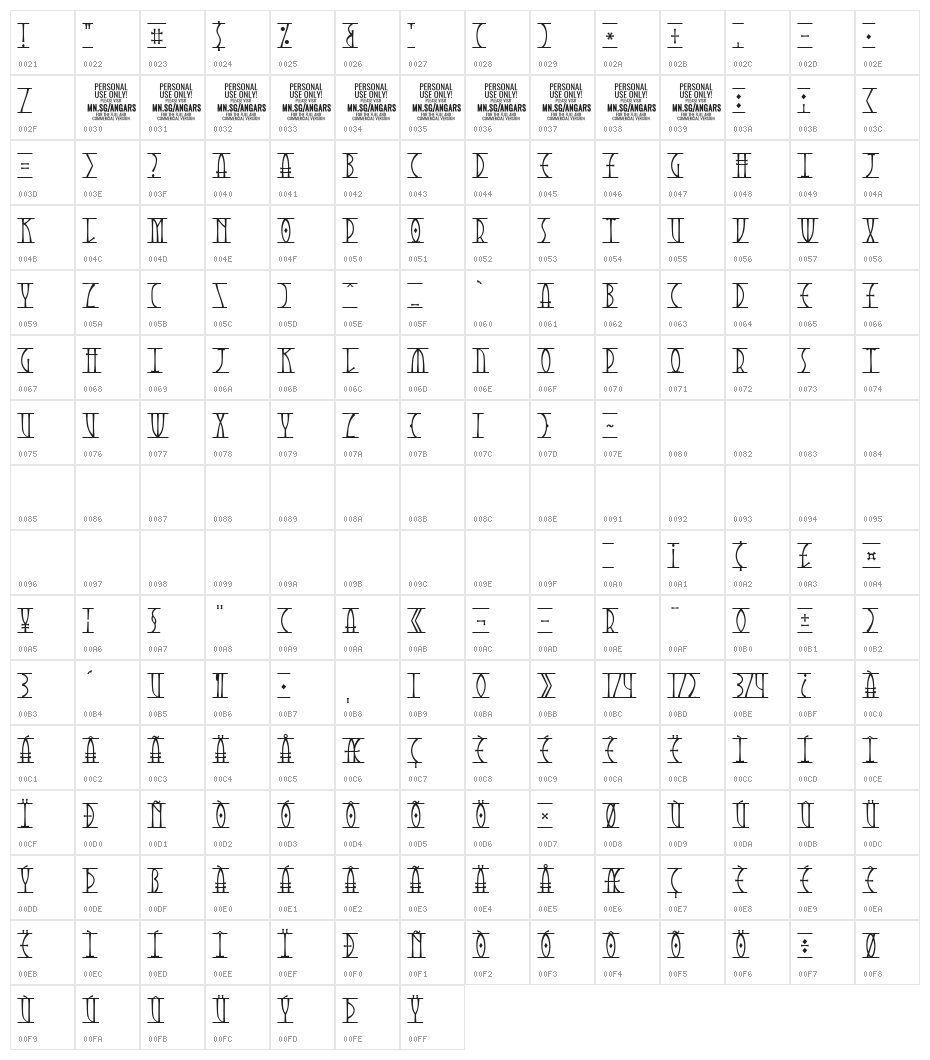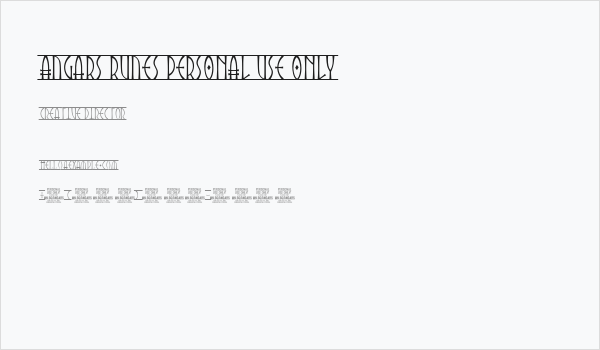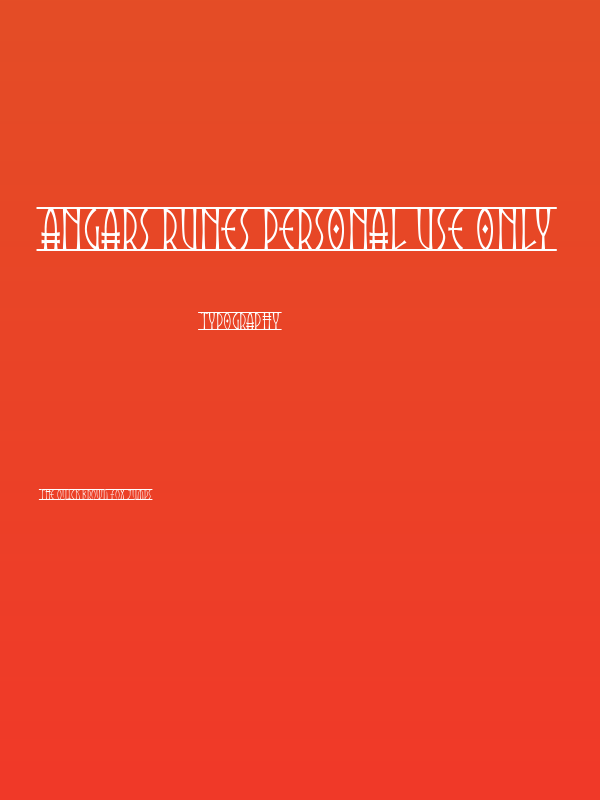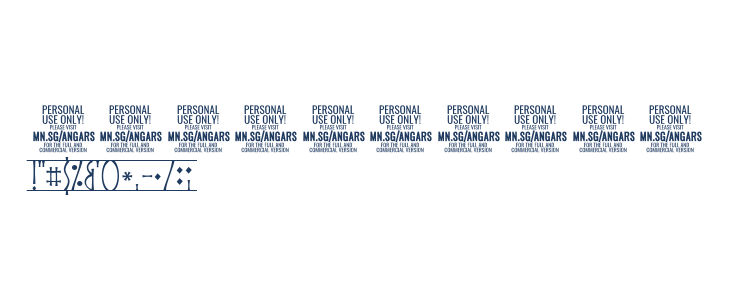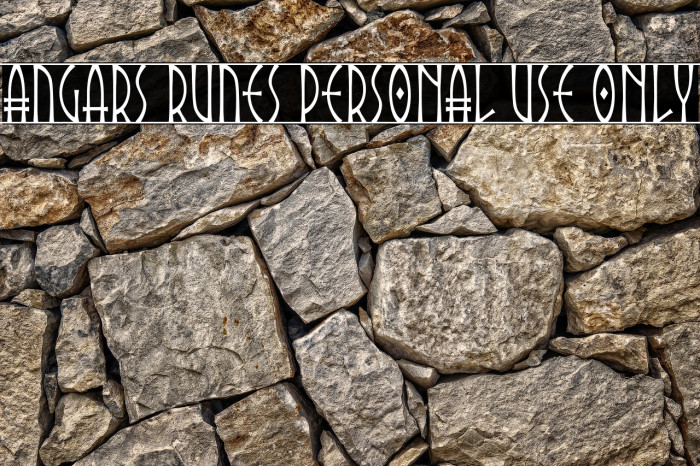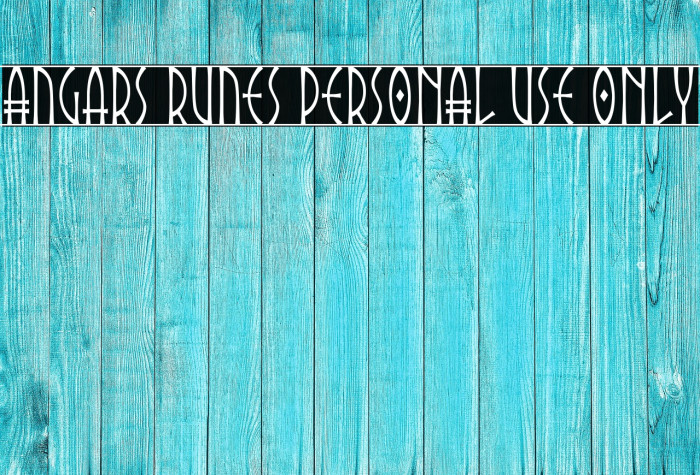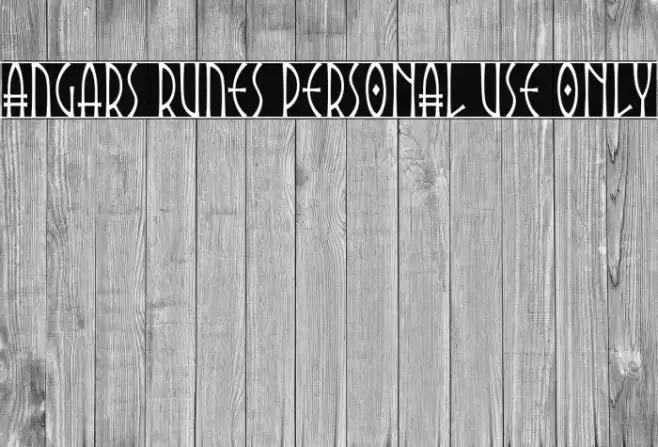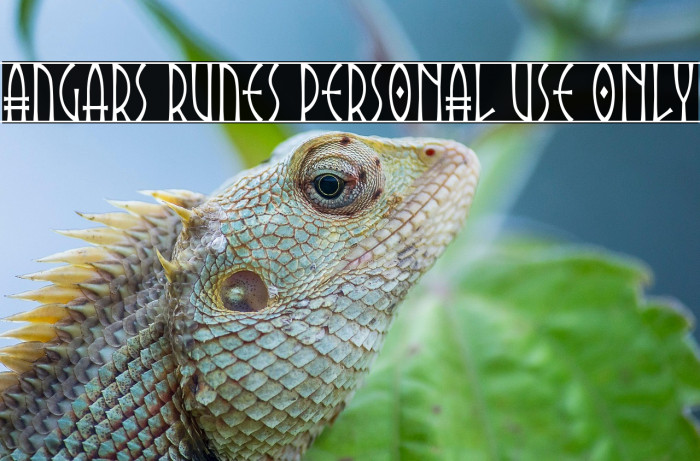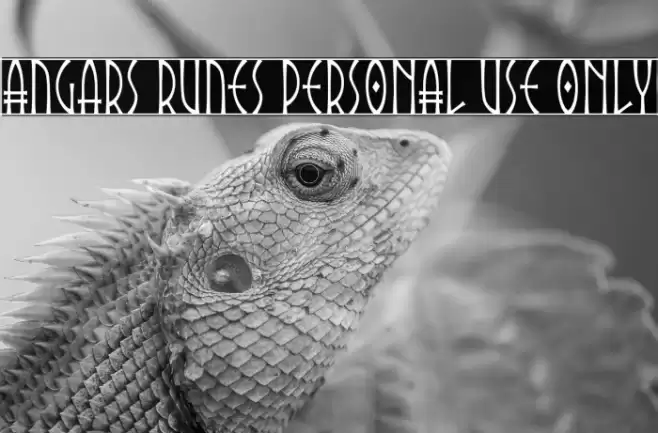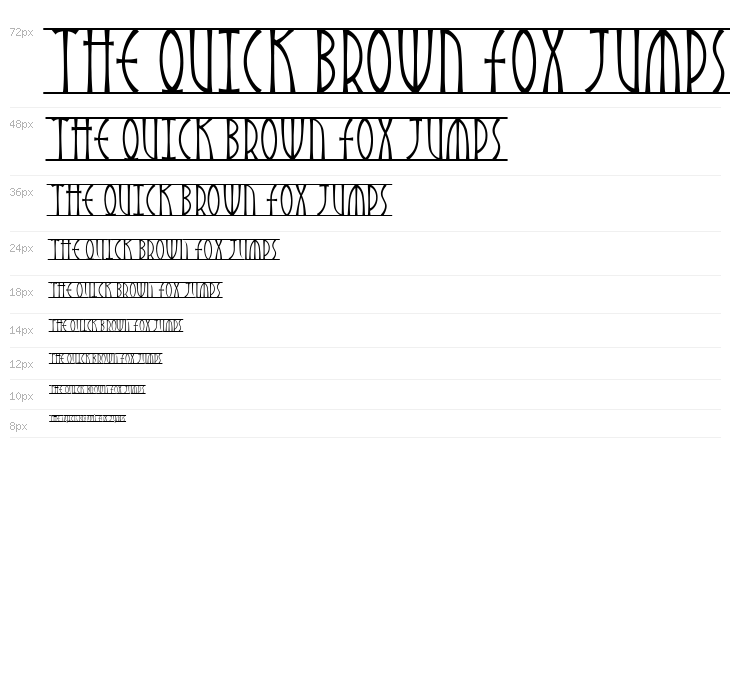
Angars Runes PERSONAL USE ONLY Font
Angars Runes PERSONAL USE ONLY Description
This font features a unique, rune-inspired design with elongated and angular letterforms. The characters are tall and narrow, with sharp edges and geometric shapes that evoke a sense of ancient script. The uppercase and lowercase letters maintain a consistent style, with some letters incorporating distinctive decorative elements, such as diagonal lines and diamond shapes. The numerals and special characters follow the same stylistic approach, ensuring a cohesive appearance across all glyphs. This font's striking and unconventional design makes it ideal for projects that require a bold and mystical aesthetic.
| Proposed Projects | Ideal for fantasy-themed designs, game titles, book covers, and posters that require a mystical or ancient aesthetic. |